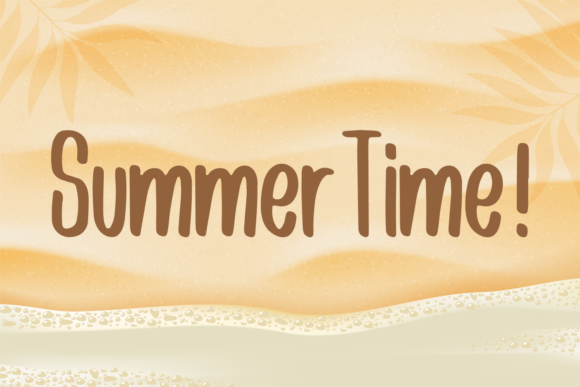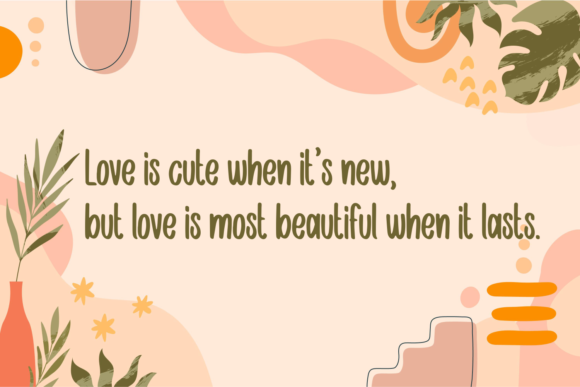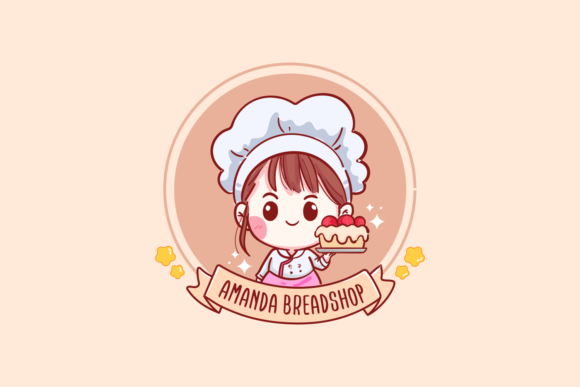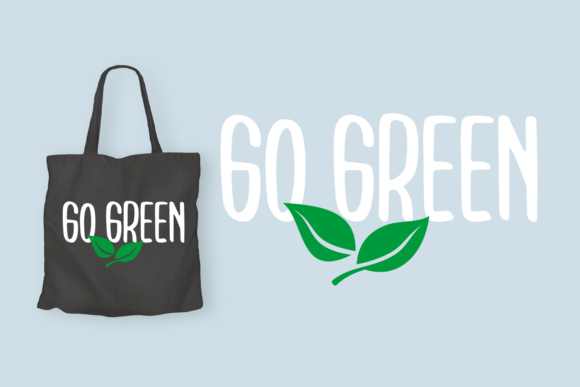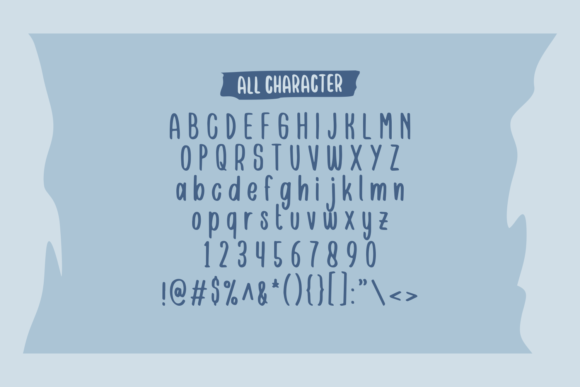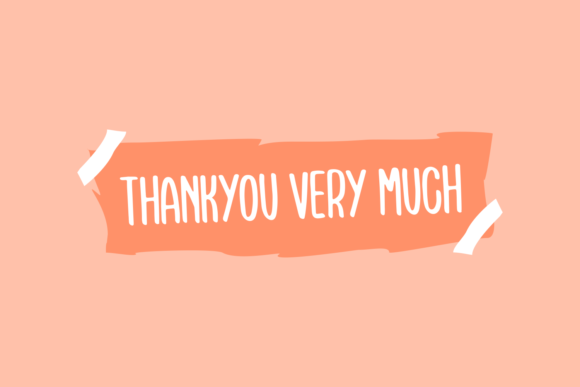
Discover the Charm of Amazon Lily Font: A Simple yet Elegant Handwritten Font
Are you a designer, crafter, or DIY enthusiast looking for a font that can elevate your creative projects? Look no further than the Amazon Lily Font, a beautiful and simple handwritten font that can add a touch of elegance to any design. In this article, we’ll explore the features and benefits of Amazon Lily Font, and why it’s a must-have for your font library.
What is Amazon Lily Font?
Amazon Lily Font is a modern handwritten font that exudes simplicity and neatness. Its clean lines and classic style make it an versatile font that can be used for a wide range of projects, from crafting and scrapbooking to graphic design and digital art. Whether you’re creating invitations, cards, or social media graphics, Amazon Lily Font is sure to make your designs stand out.
Key Features of Amazon Lily Font
- Simple and Neat: Amazon Lily Font features a simple and neat design that makes it easy to read and use.
- Handwritten Style: The font has a beautiful handwritten style that adds a personal touch to any design.
- Versatile: Amazon Lily Font can be used for a wide range of projects, from crafting and scrapbooking to graphic design and digital art.
- Elegant: The font’s classic style and clean lines make it an elegant addition to any design.
Benefits of Using Amazon Lily Font
So why should you choose Amazon Lily Font for your projects? Here are just a few benefits of using this amazing font:
- Enhance Your Designs: Amazon Lily Font has the potential to enhance any creation, making it a wonderful asset to your font library.
- Save Time: With Amazon Lily Font, you can create beautiful designs quickly and easily, saving you time and effort.
- Stand Out: The font’s unique style and elegance will help your designs stand out from the crowd.
- Easy to Use: Amazon Lily Font is easy to install and use, making it accessible to designers of all levels.
How to Use Amazon Lily Font
Using Amazon Lily Font is easy! Here are a few tips to get you started:
- Pair with Other Fonts: Amazon Lily Font pairs well with other fonts, so feel free to experiment with different combinations.
- Use for Headings and Titles: The font’s elegant style makes it perfect for headings and titles.
- Add a Personal Touch: Use Amazon Lily Font to add a personal touch to your designs, such as in journaling or scrapbooking.
In conclusion, Amazon Lily Font is a simple yet elegant handwritten font that can elevate any design. Its versatility, elegance, and ease of use make it a must-have for designers, crafters, and DIY enthusiasts. Whether you’re creating digital art, crafting, or scrapbooking, Amazon Lily Font is sure to become a favorite in your font library.